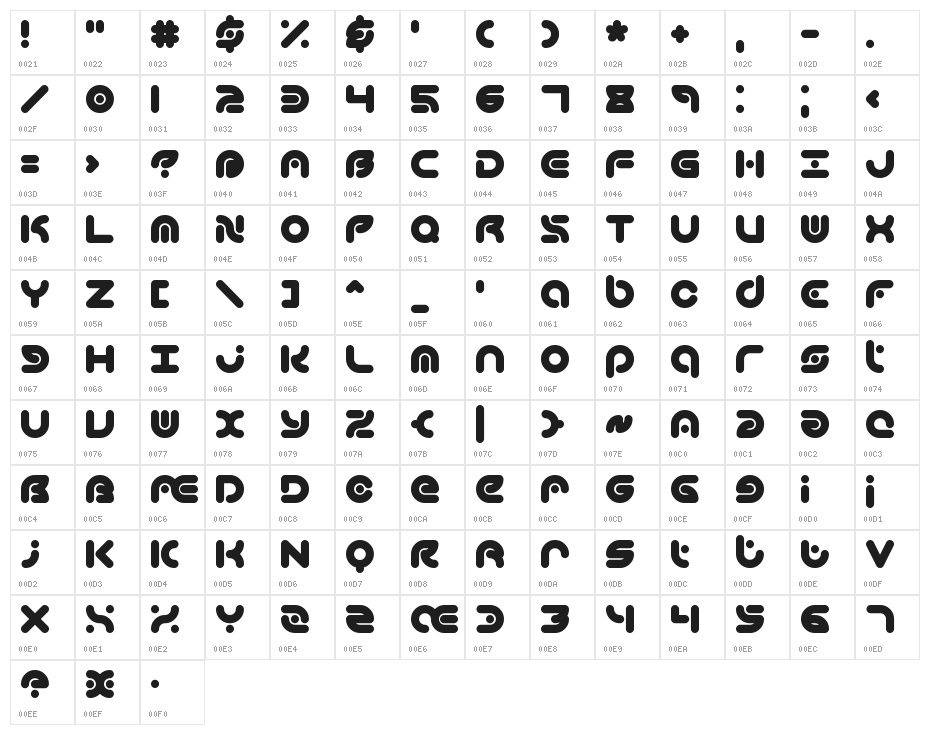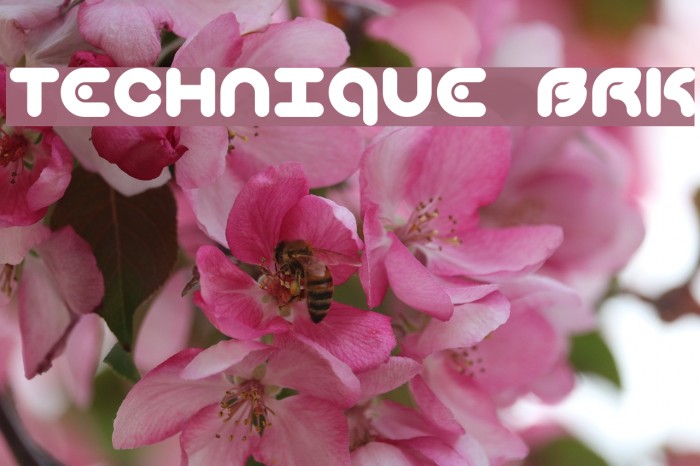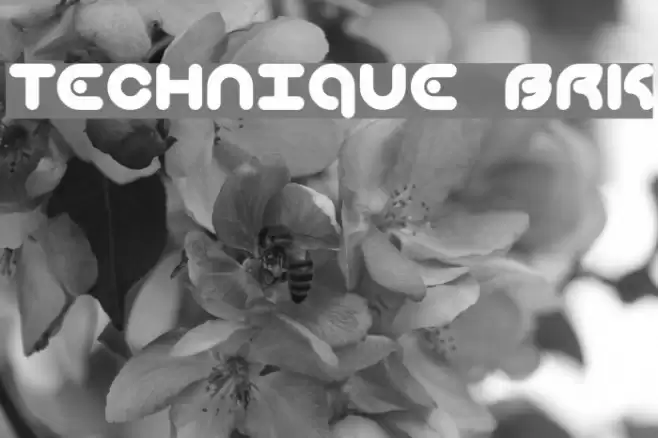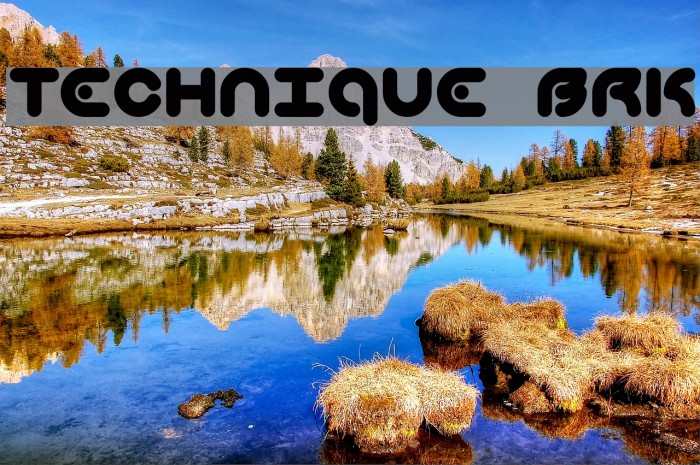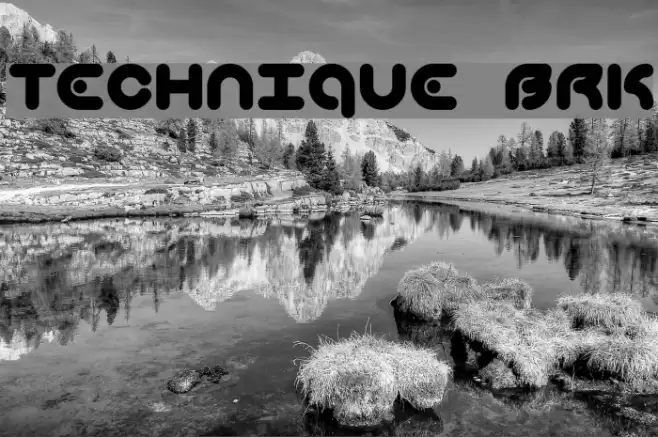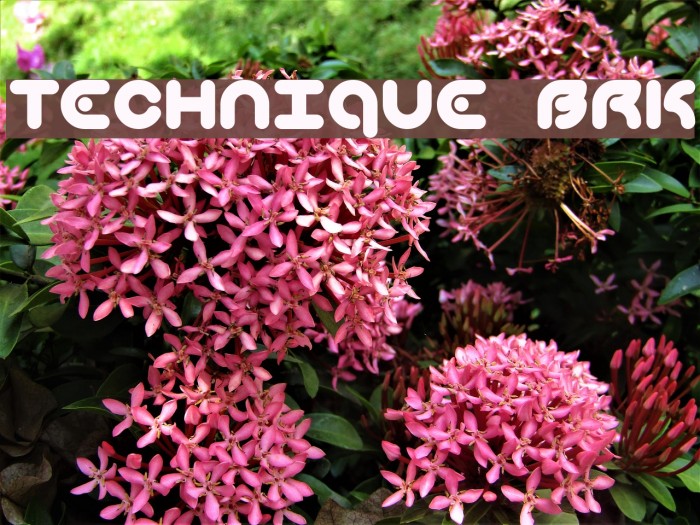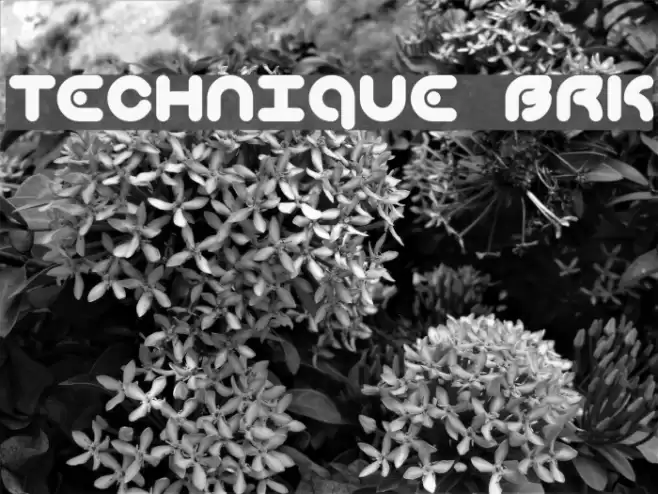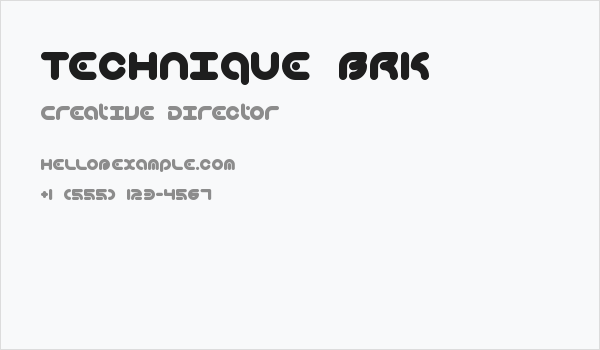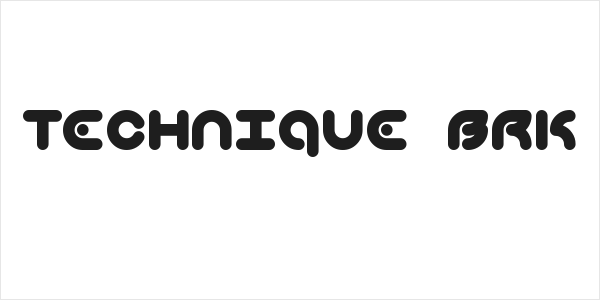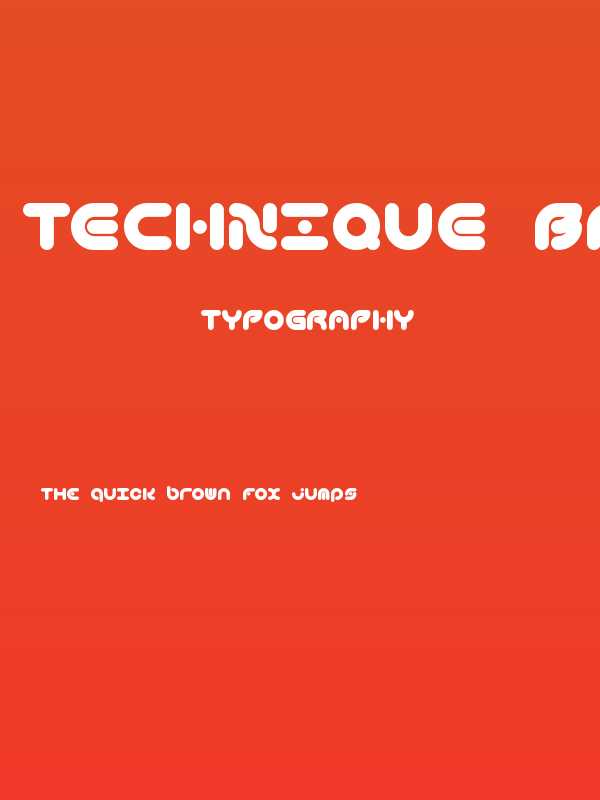
Technique BRK Font
Technique BRK Description
This font features a bold and futuristic design, characterized by its rounded and geometric letterforms. The characters are constructed with thick strokes and smooth curves, giving them a distinct and modern appearance. The font's unique style is further emphasized by the consistent use of circular shapes and cut-out sections within the letters, creating a sense of movement and dynamism. This design choice makes the font highly suitable for projects that aim to convey a sense of innovation and forward-thinking. The numbers and special characters maintain the same bold and rounded aesthetic, ensuring a cohesive look across all text elements.
| Proposed Projects | Ideal for technology branding, sci-fi themed designs, video game titles, and modern advertising campaigns. |